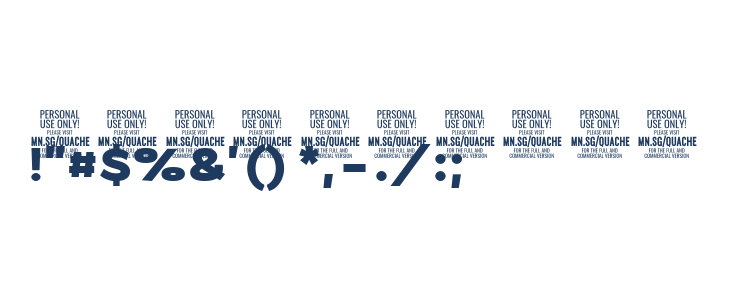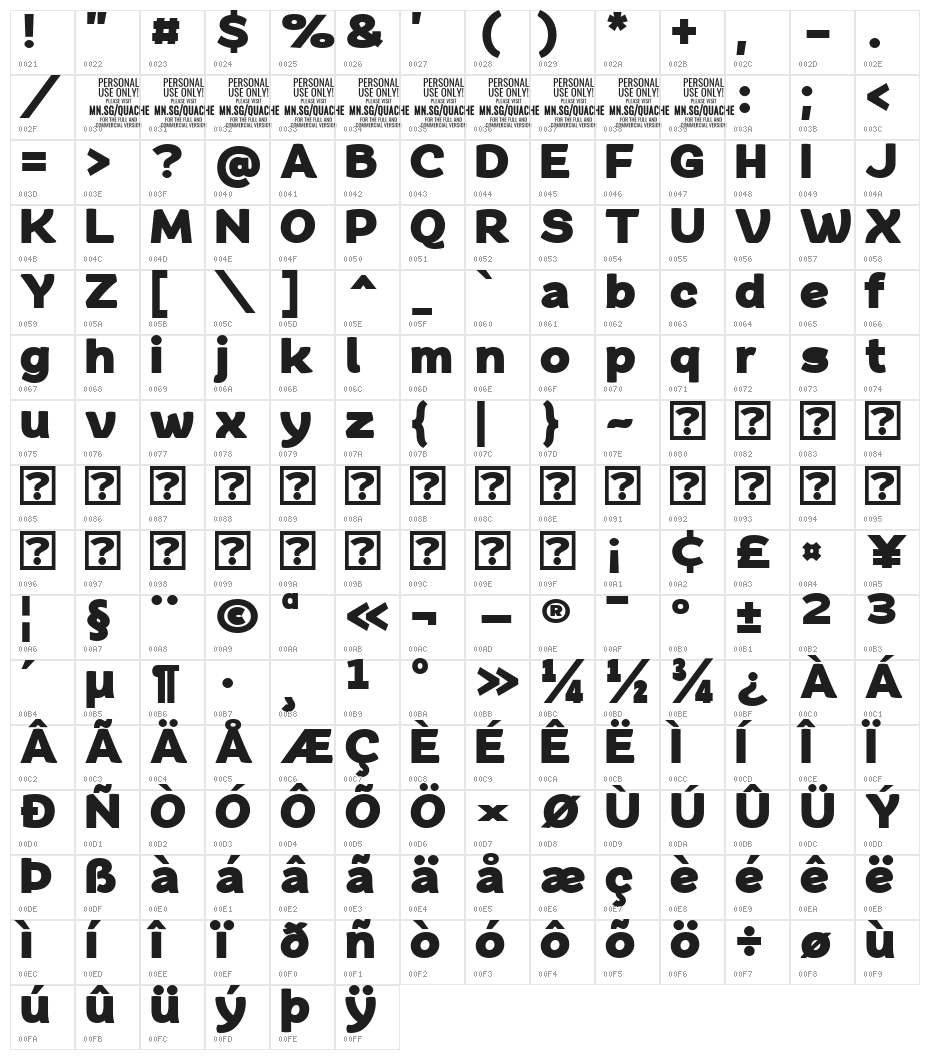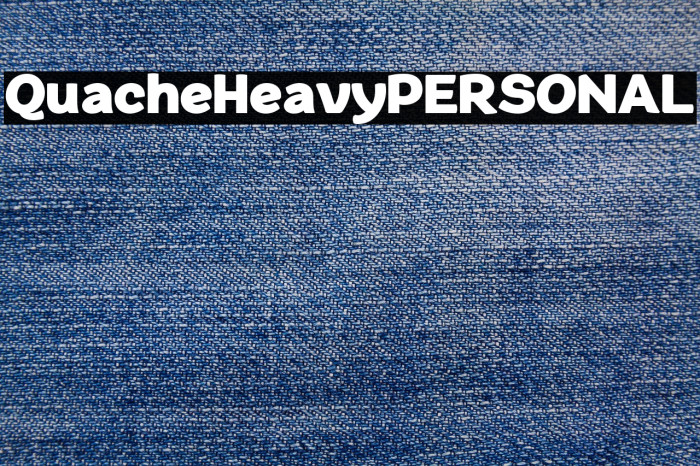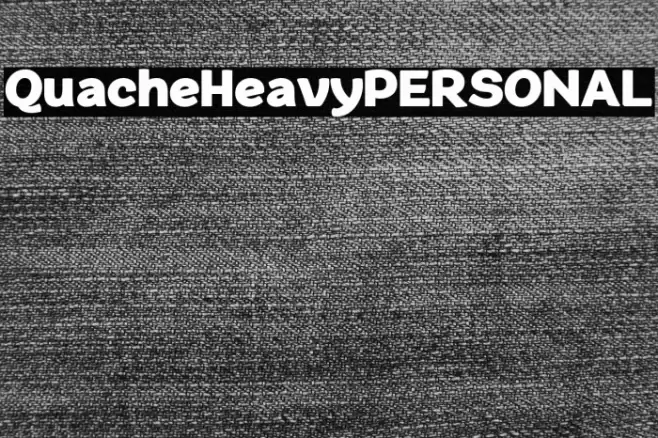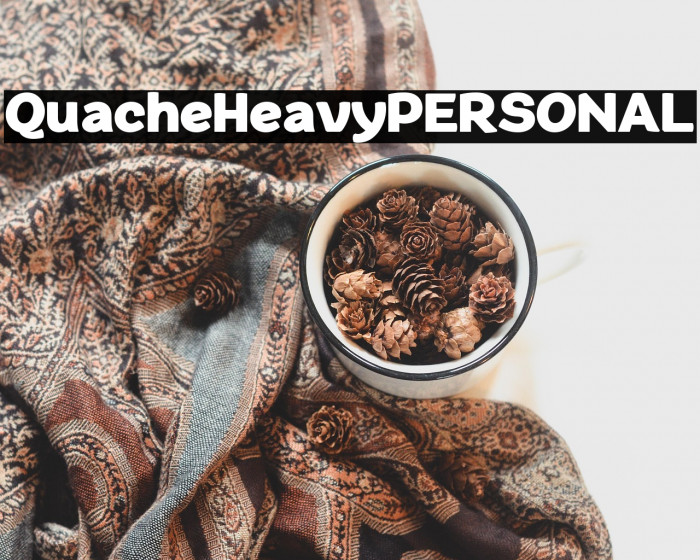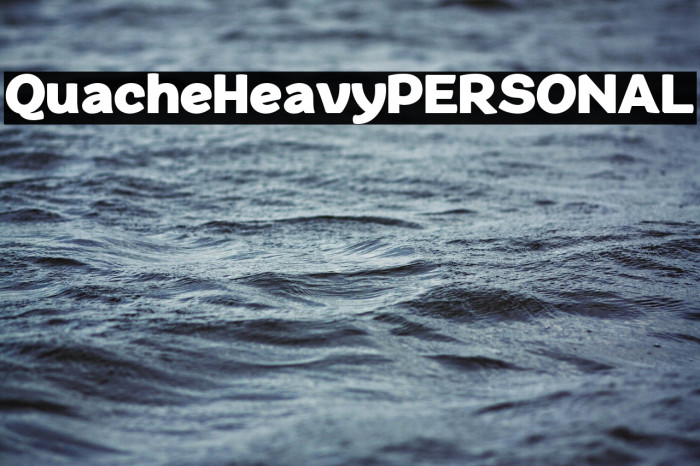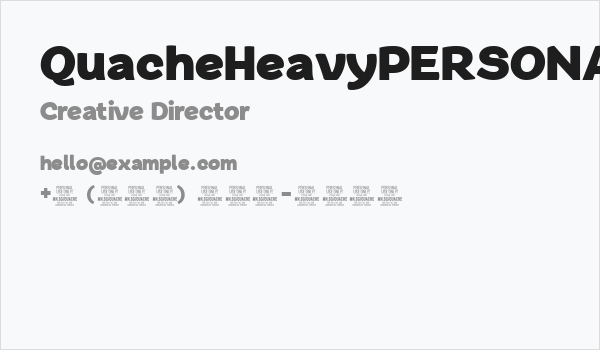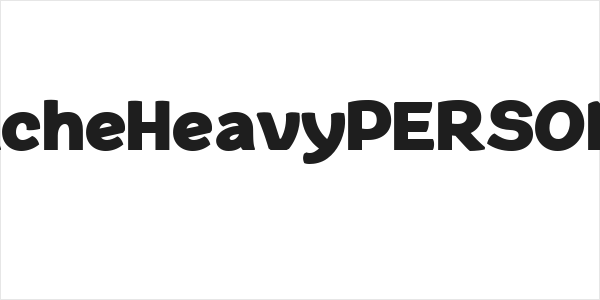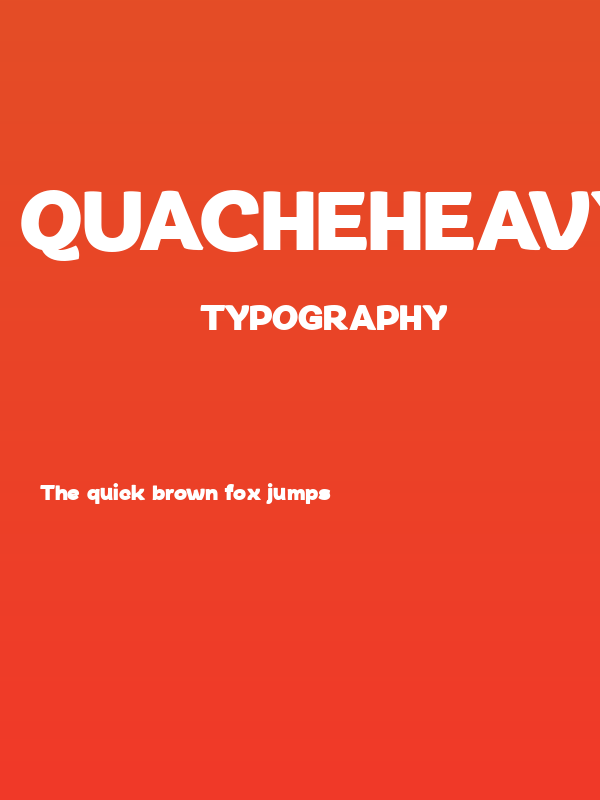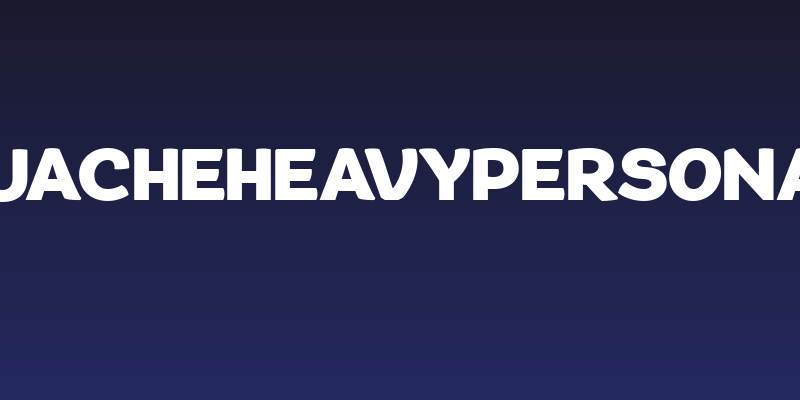
QuacheHeavyPERSONAL Font
QuacheHeavyPERSONAL Description
This bold and impactful font features thick, uniform strokes that create a strong visual presence. The characters are well-defined with a slightly rounded appearance, giving them a modern and approachable feel. The uppercase and lowercase letters maintain a consistent style, ensuring readability and cohesion across different text sizes. The numerals and special characters are designed to match the boldness of the alphabet, making them suitable for a variety of uses. The overall design is clean and straightforward, with a focus on clarity and legibility.